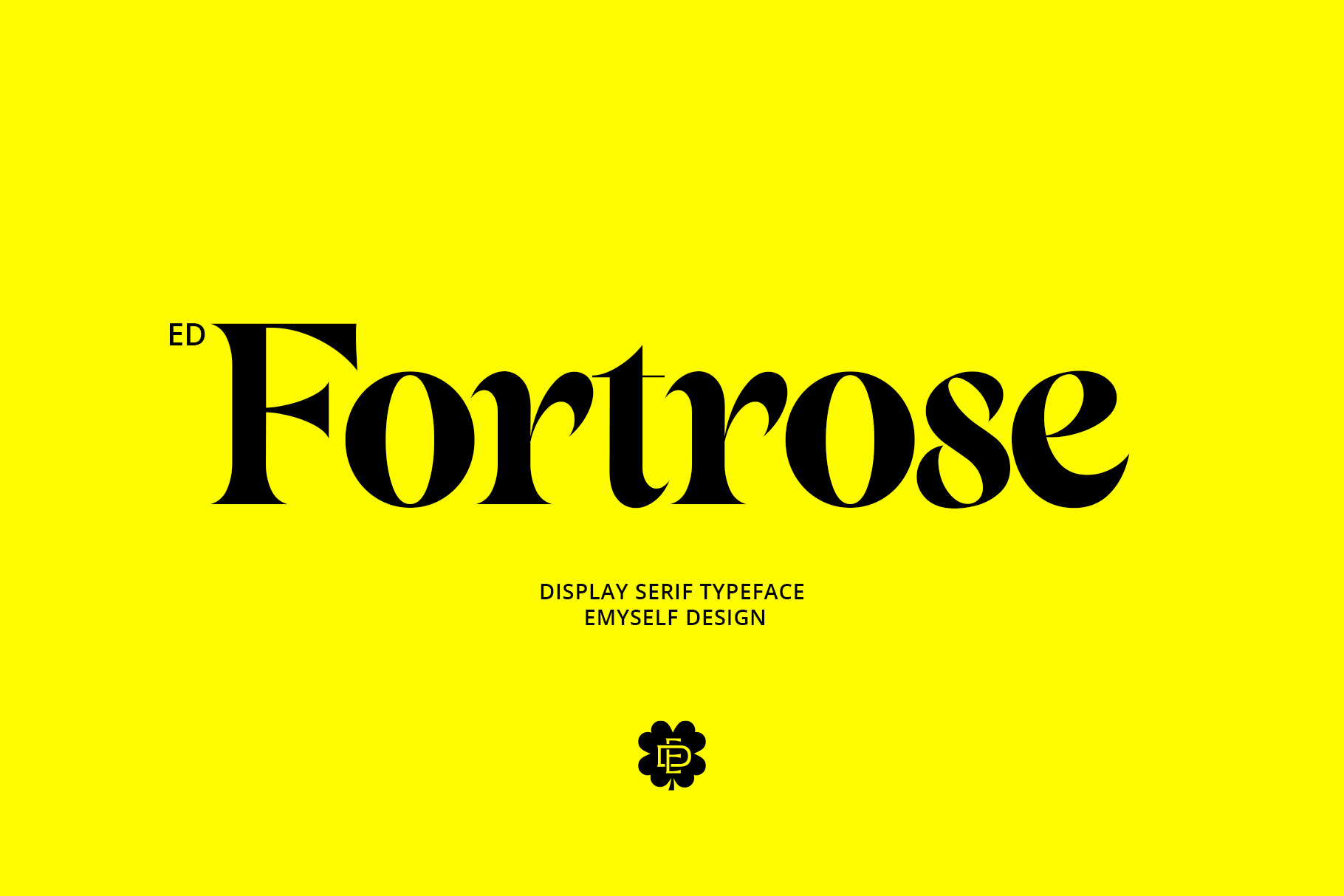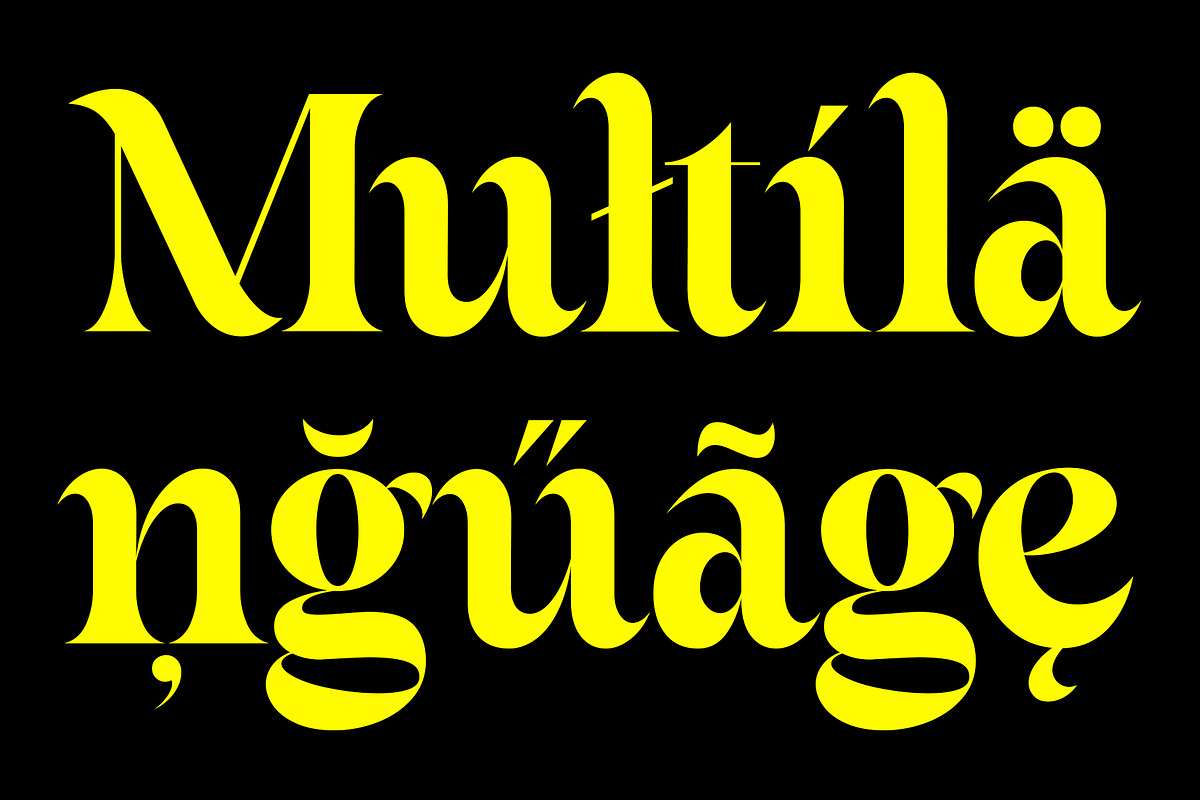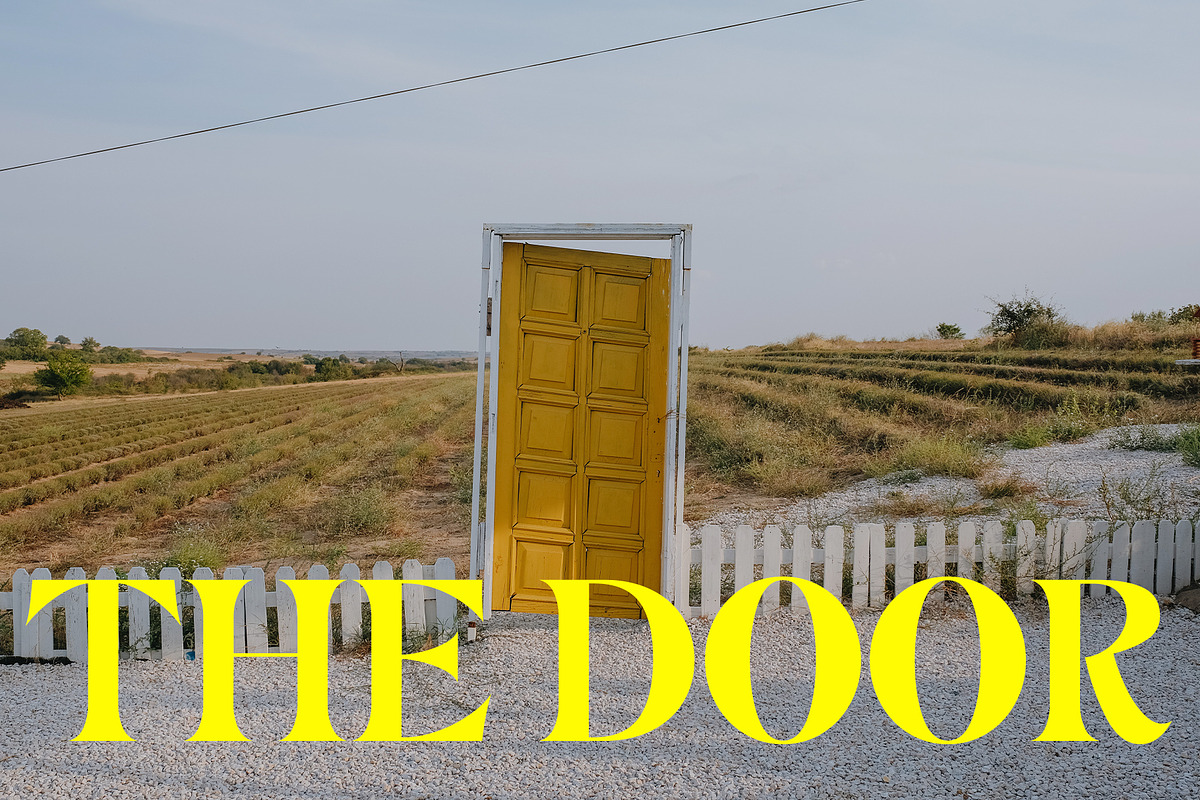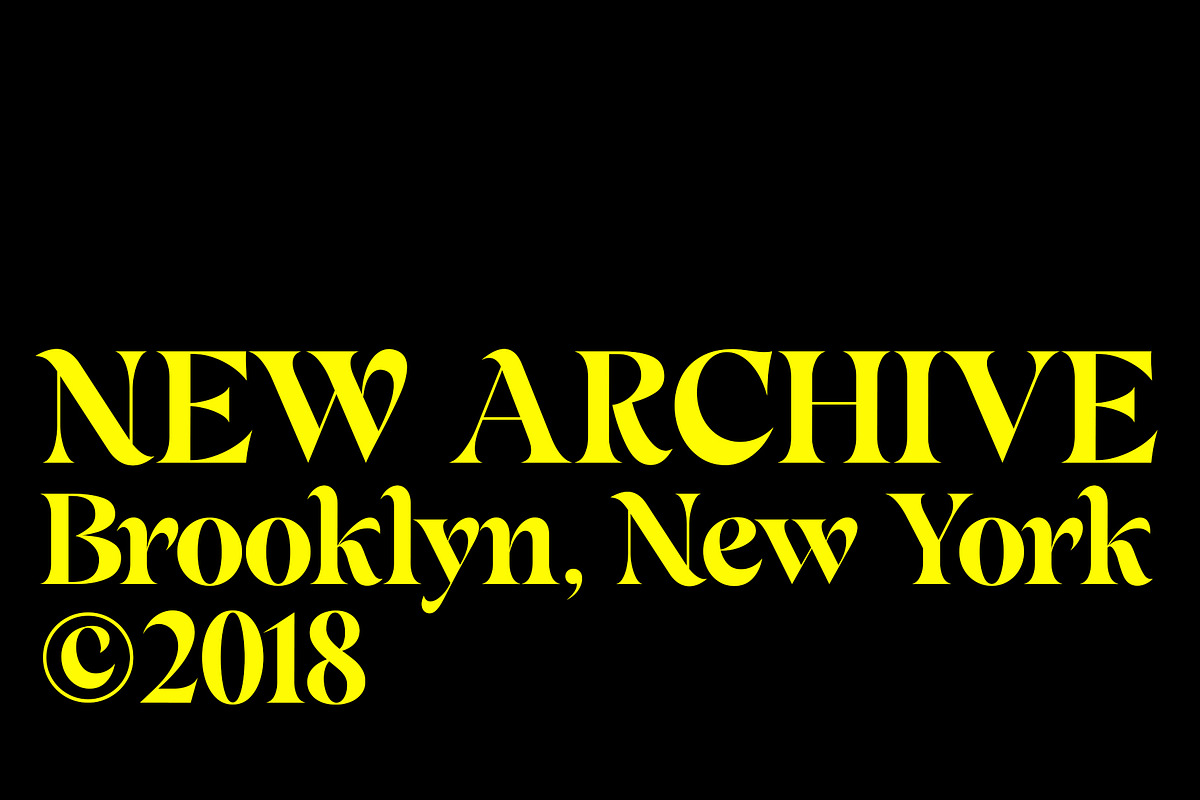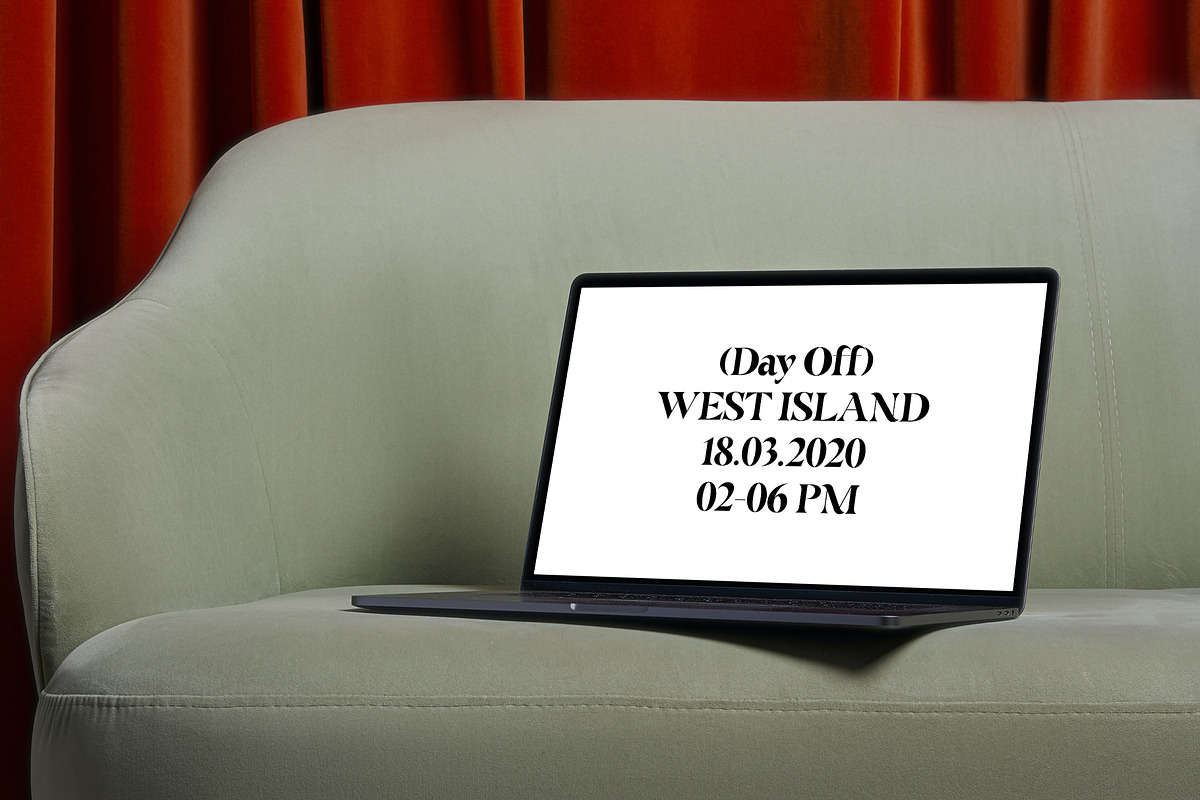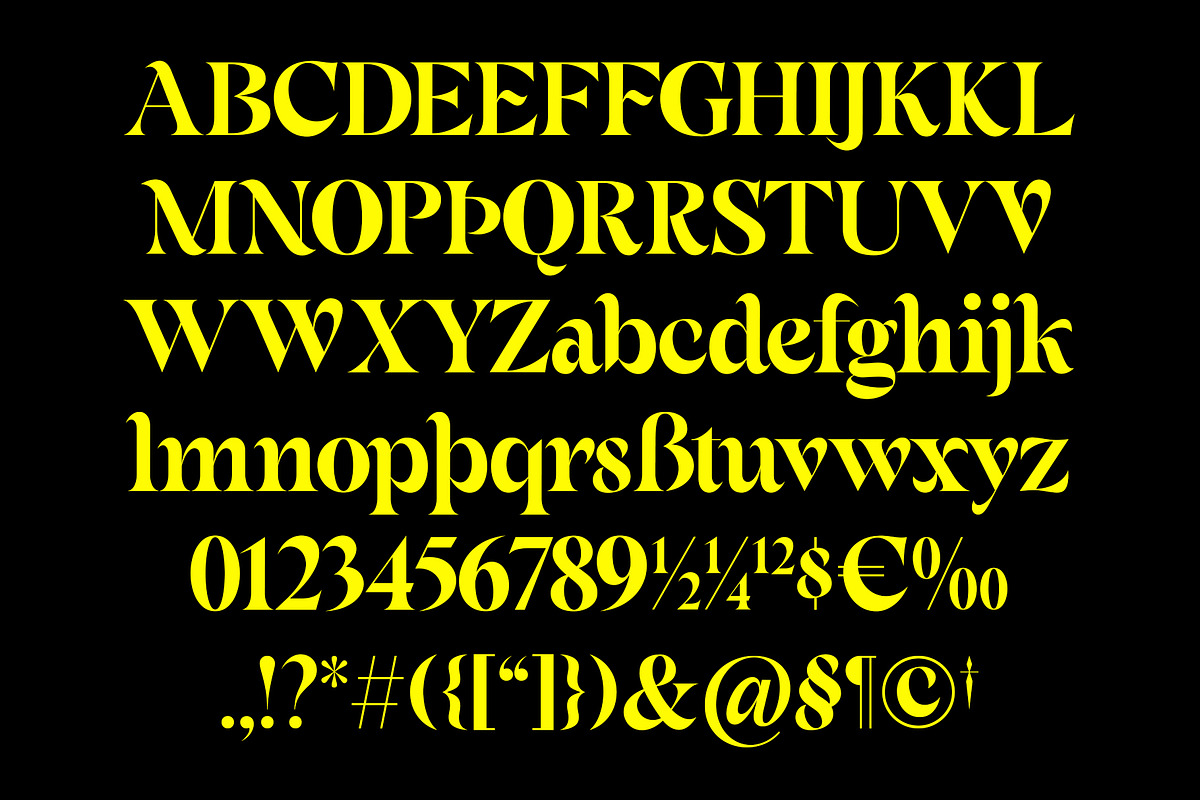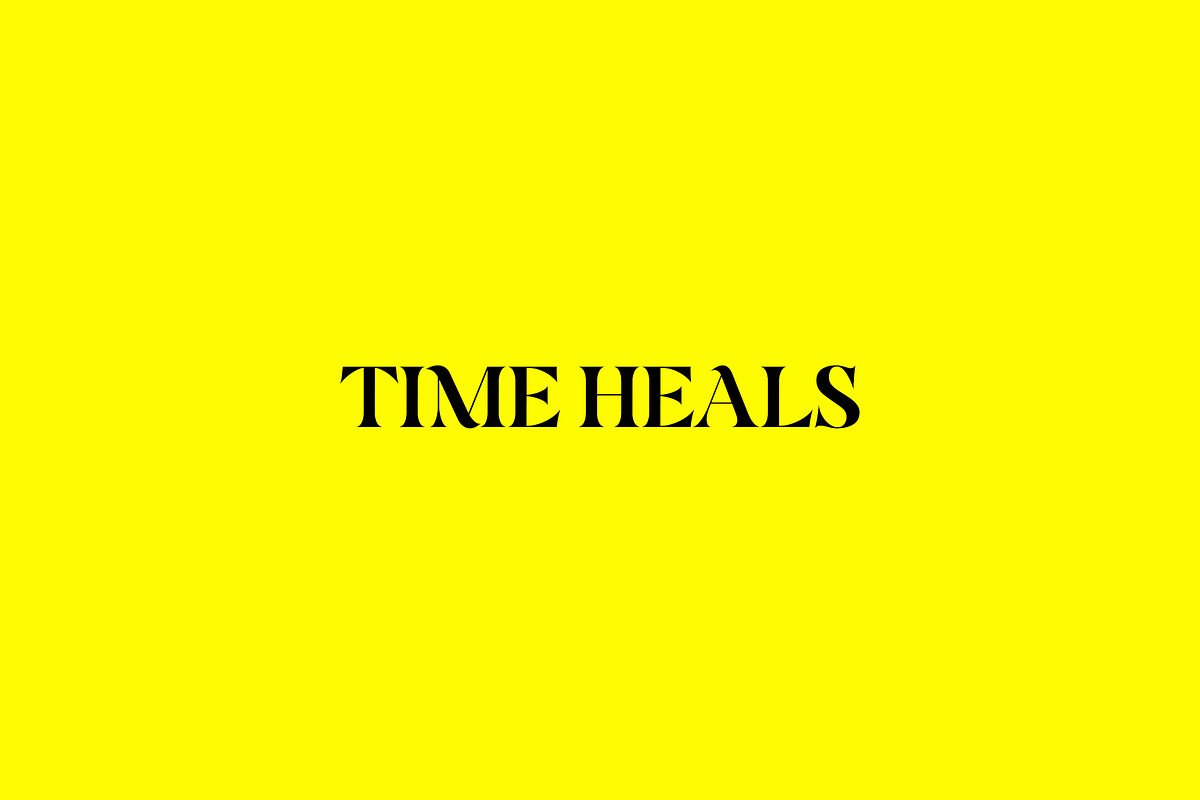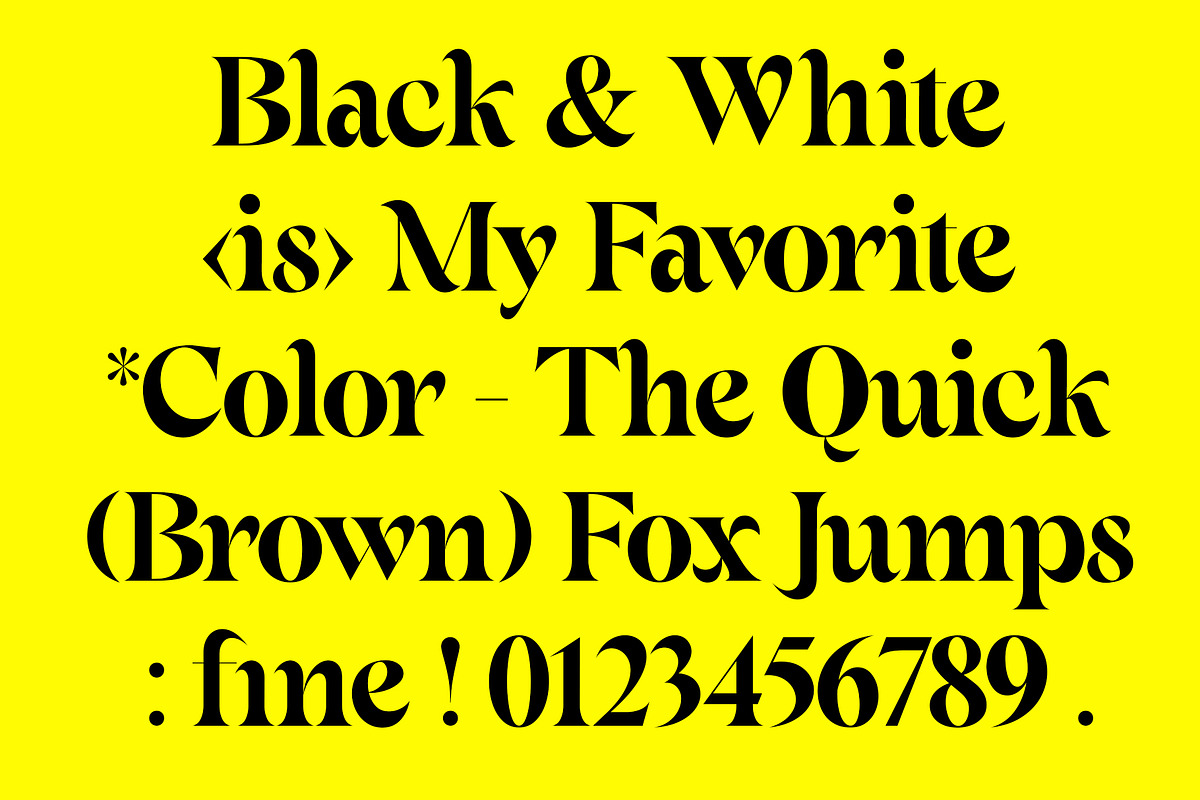
ED Fortrose - Serif Typeface
Fortrose is a classic-style serif font with a bold look and sharp thin lines. Fortrose also features ligatures, alternative characters, and a multilingual environment which further complements this font use. This font is perfect for creative projects such as Logotypes, printed quotes, invitations, cards, product packaging, headers, Letterhead, Apparel, Web design, Magazine, Book, etc.
*FEATURES:
- Punctuation and Marks
- Stylistic set & Ligatures